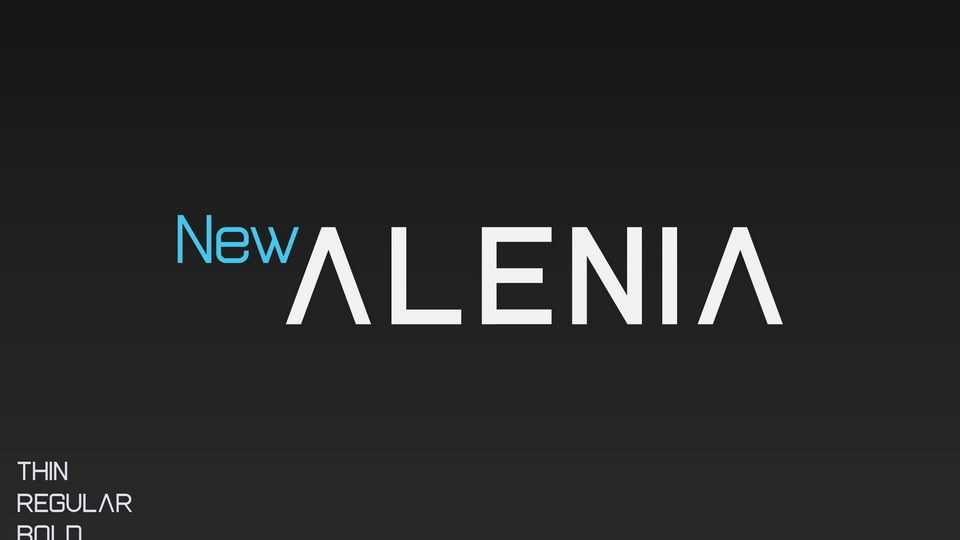
Download New Alenia font, a modern and cool sans serif typeface. It will look stunning on any poster, flyer or print. Use New Alenia font for your designs and explore its endless possibilities.
Designer: Shanaya Creative